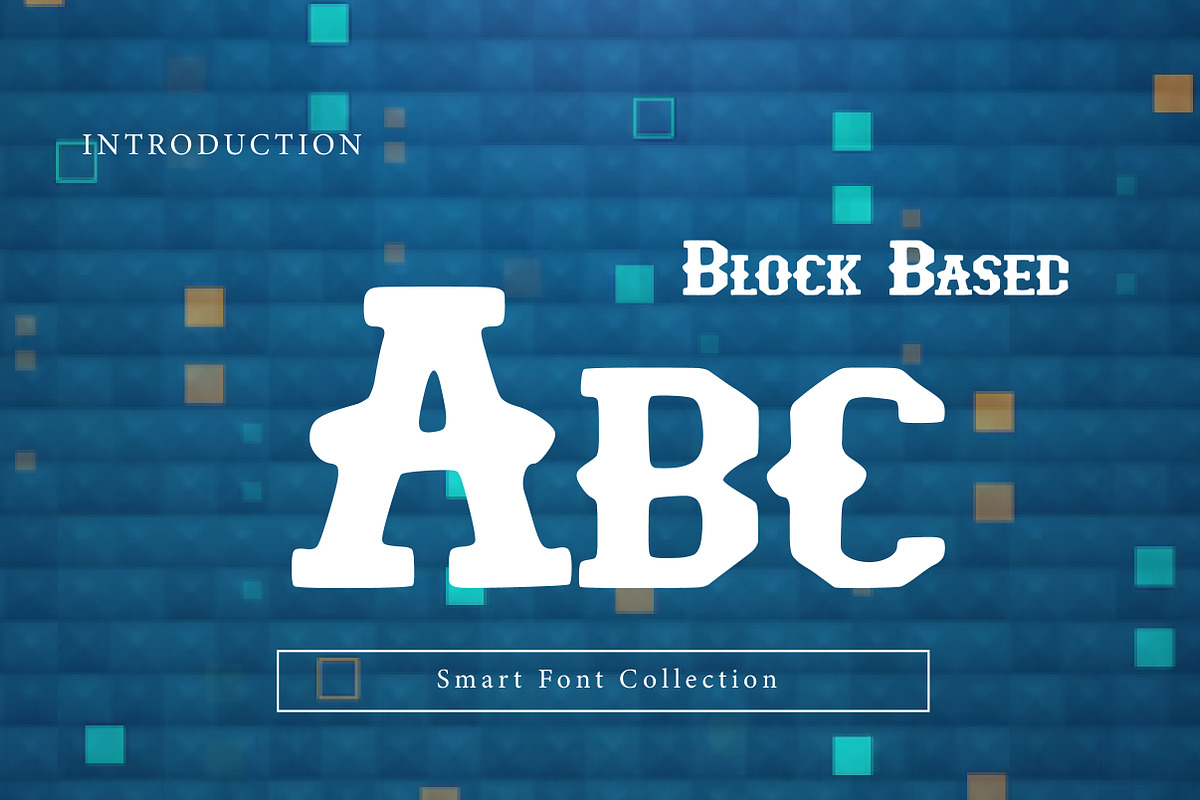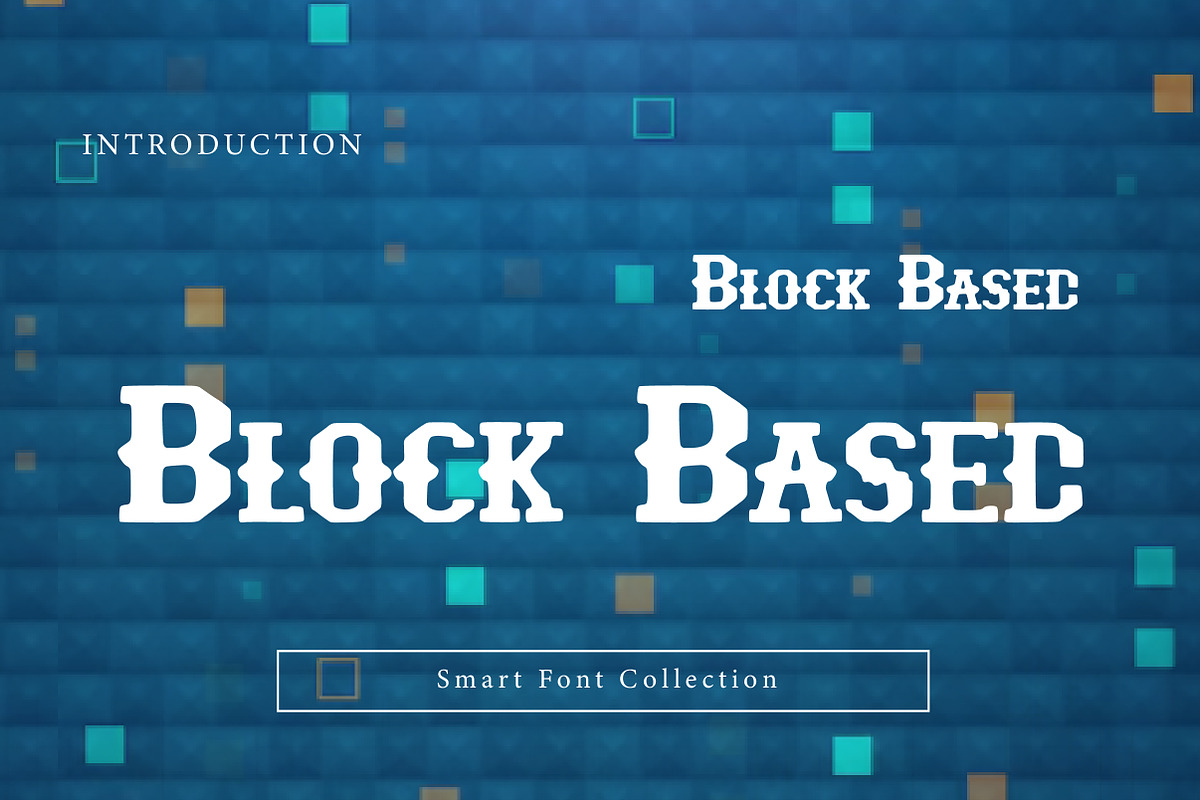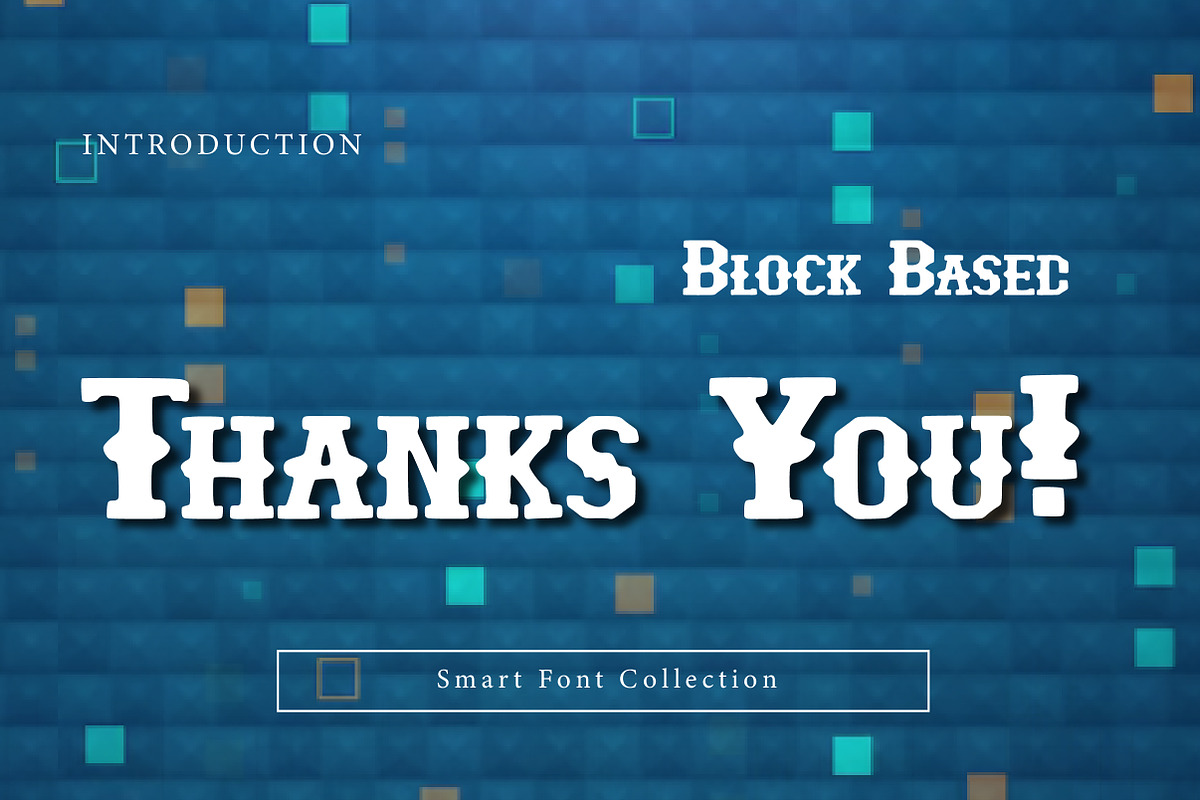
Block Based
Block Based is a strong, rugged block-style display font with bold slabs, rough edges, and a solid industrial character. Its sturdy construction and slightly distressed feel make it ideal for posters, logos, headlines, signage, packaging, editorial design, and bold branding projects. Block Based delivers a powerful, masculine, and confident visual presence that stands out instantly.